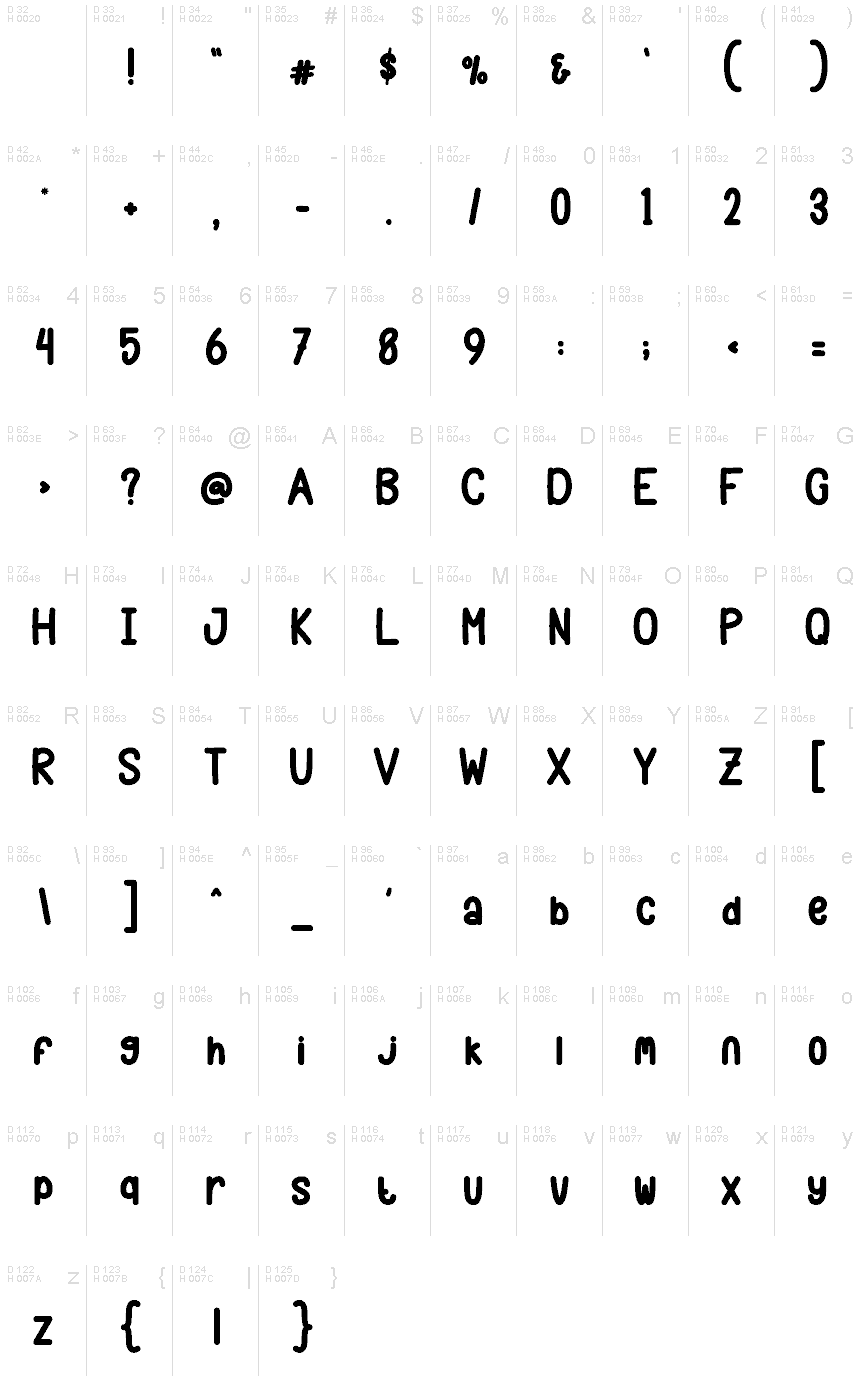
Beaching
Beaching font by Scratchones is a handwritten typeface with rounded shapes and a casual appearance. Its organic flow conveys a relaxed mood, combining this feature with quirky flair to make readers comfortable when used within texts. Gentle, fun, and light-hearted: beaching synthesizes all these characteristics and puts them on display within eye-catching wording.
All these features make this free handwritten font applicable in designs that relate to summer activities and destinations, eco-conscious businesses, yoga centers, outdoor health retreats, tropical decor shops, edible products vendors & packagers (especially organic ones), book covers, album covers or social media special event announcements.